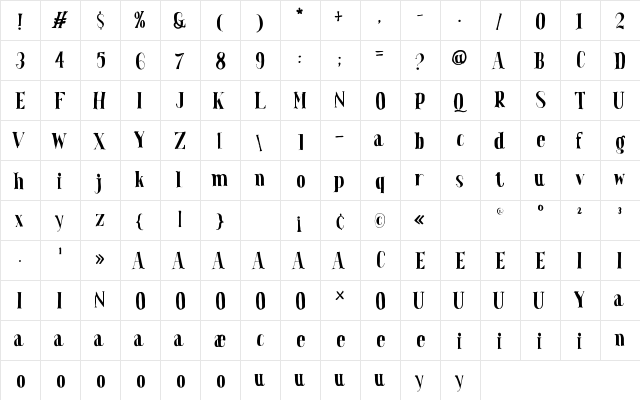
Rosta Regular
| Foundry | Moreltype |
| Designer | hermawan |
Design Context for Rosta Typeface
Rosta is a composed and adaptable typeface that performs quietly and consistently across a wide range of design contexts.